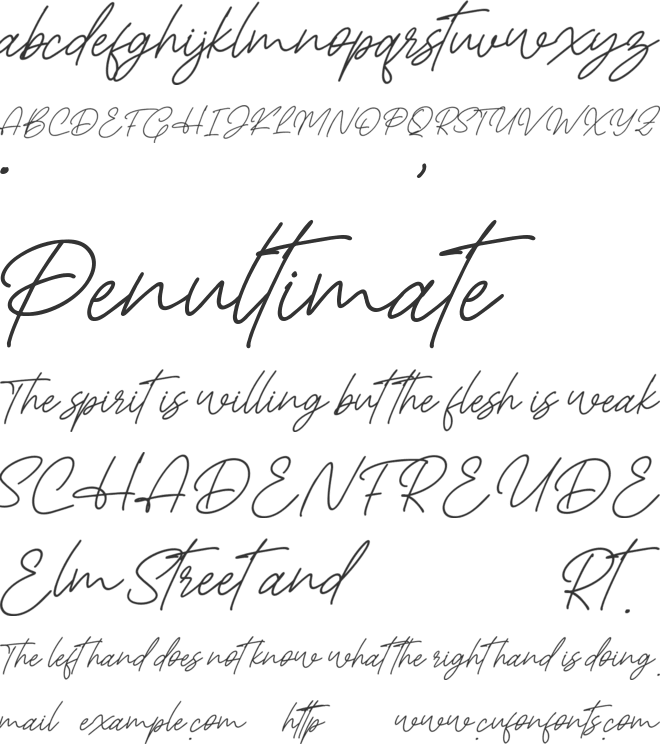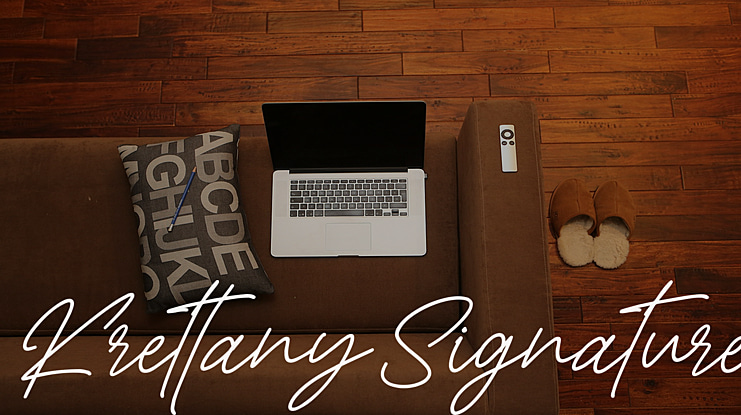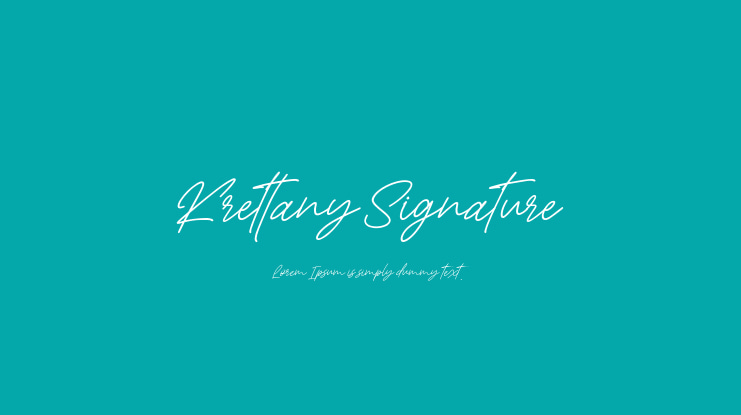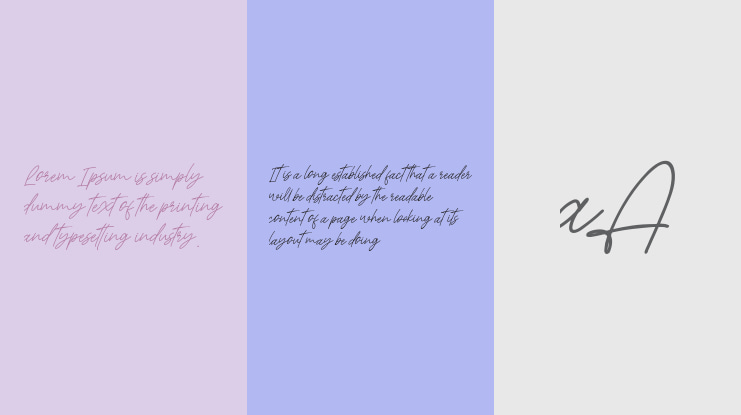
Krettany Signature Font
Krettany Signature Font is a signature-style script font that is casual and easy to read. Luxurious and premium looking, this gorgeous typeface is perfect for, watermarks, branding, business, business cards, product logos, etc.
– Uppercase, Lowercase, Numeral & Punctuation
– Alternate Letters, Ligature & Swash/Tail